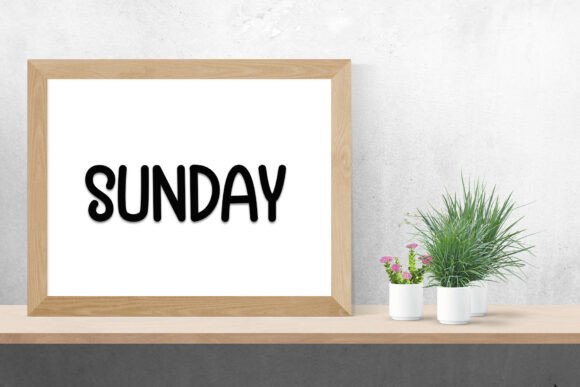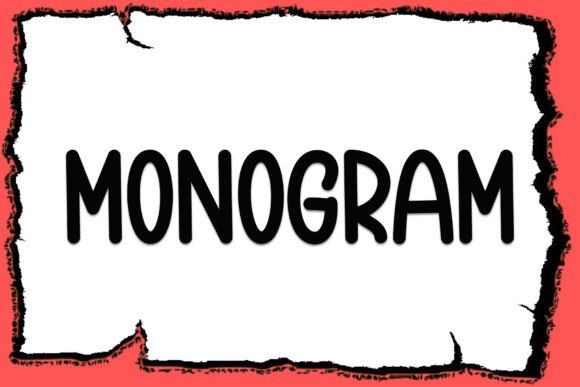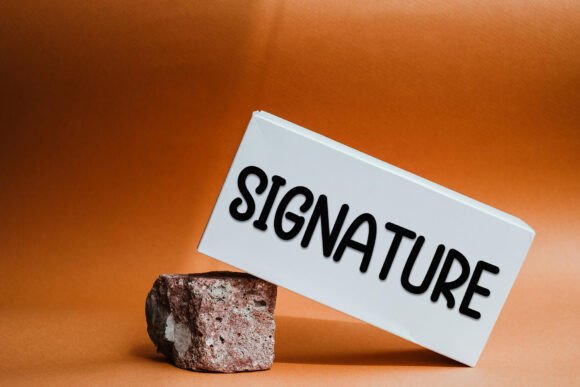
Introduction to Jewelry Charm Font
Jewelry Charm is a playful handwritten display font.
It has a stylish and natural look, perfect for adding a personal touch to your designs, like invitations, logos, or greeting cards Its unique and fun style makes your text stand out beautifully.
Key Features of Jewelry Charm Font